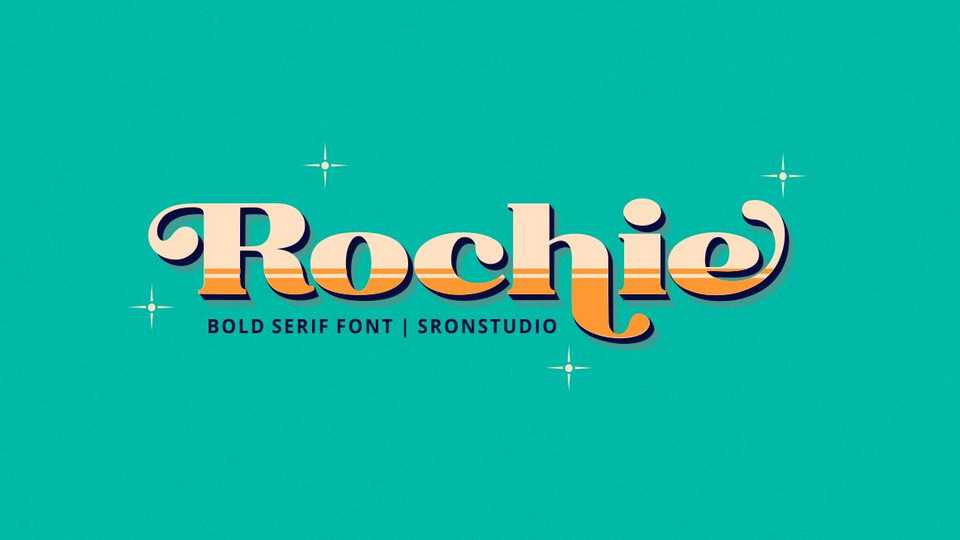
Download Rochie font, a bold retro serif typeface with a vintage aesthetic. Rochie is perfect for branding, invitation, stationery, wedding designs, social media posts, advertisements, label and more.
Designer: Sronstudio